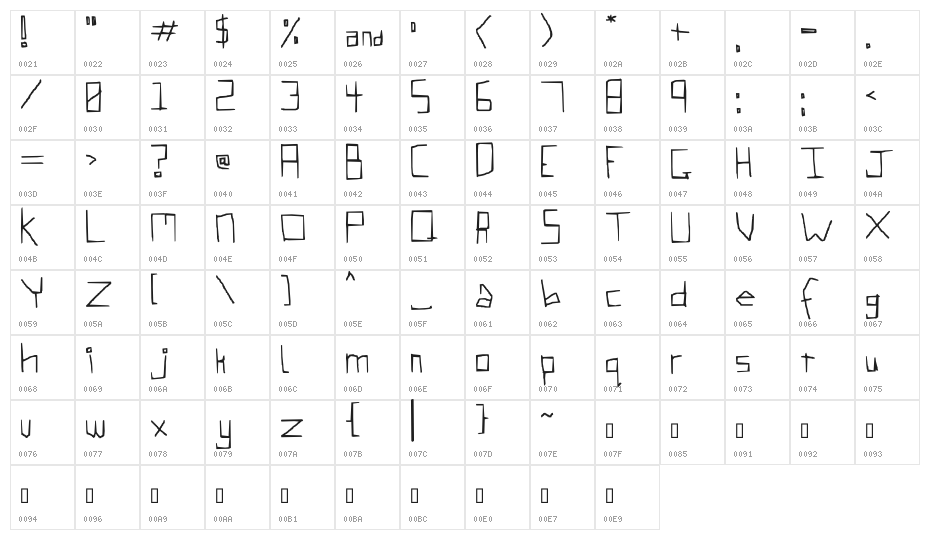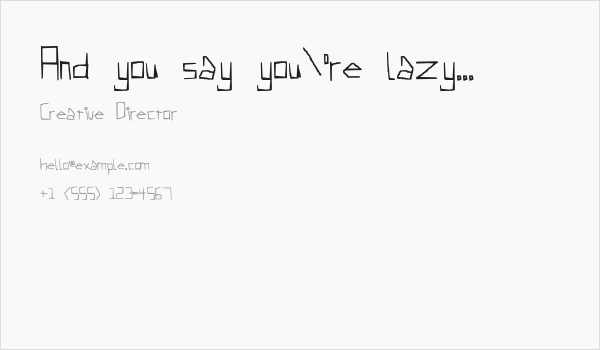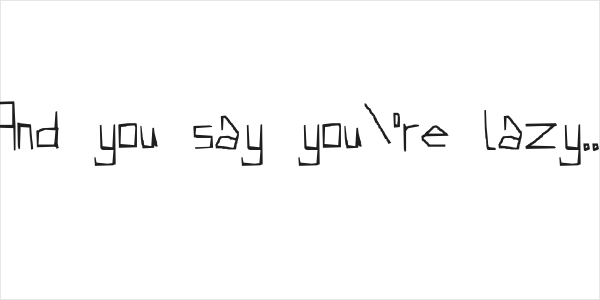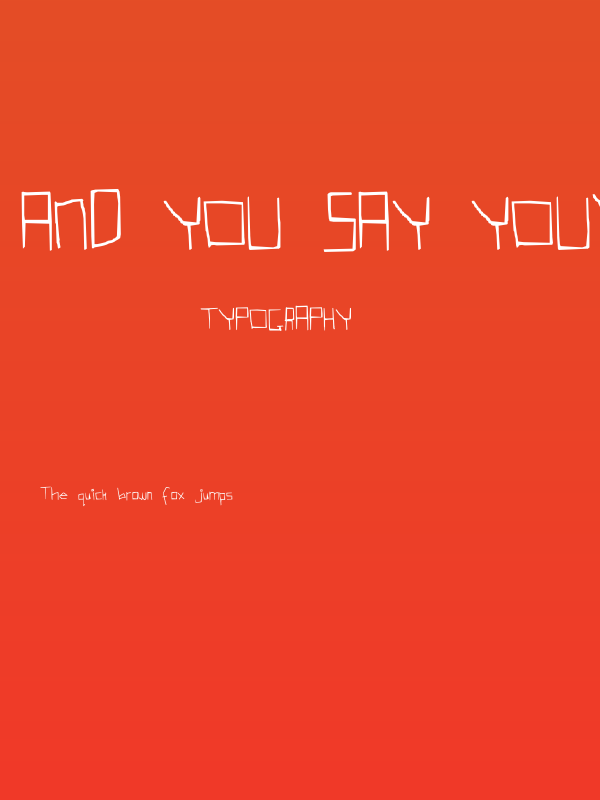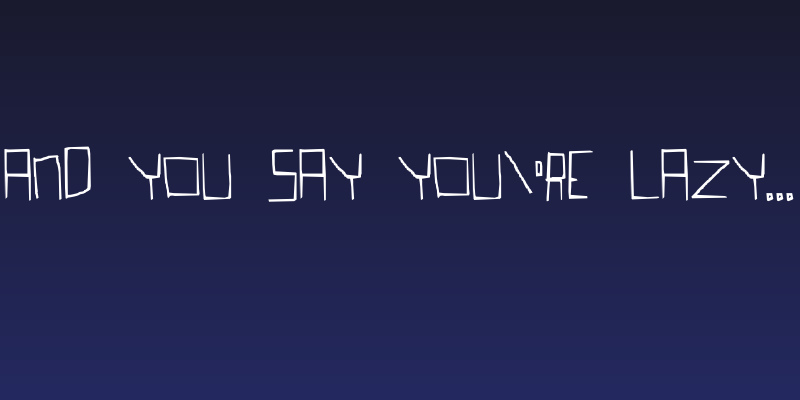
And you say you're lazy... Font
And you say you're lazy... Description
This font features a playful, hand-drawn style with a casual and informal appearance. The characters are constructed with uneven, slightly jagged lines, giving them a whimsical and quirky look. The uppercase and lowercase letters maintain a consistent height, while the numbers and special characters follow the same playful design. The overall appearance is reminiscent of doodles or sketches, making it suitable for creative and fun projects. The font's irregularity adds a unique charm, making it stand out in informal settings.
| Proposed Projects | Ideal for children's books, comic strips, casual invitations, and creative posters. |